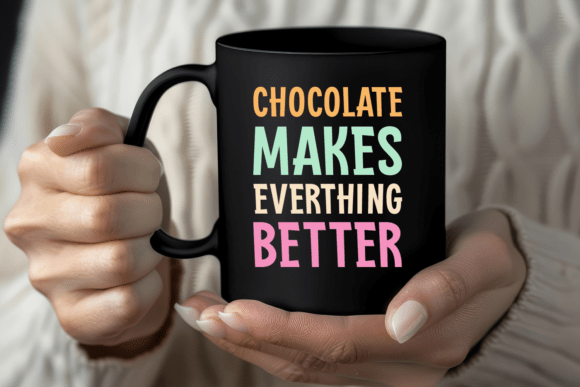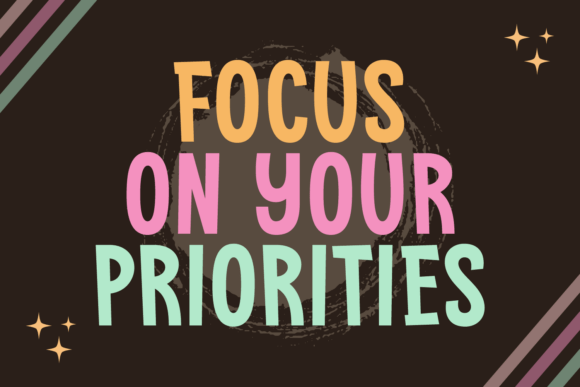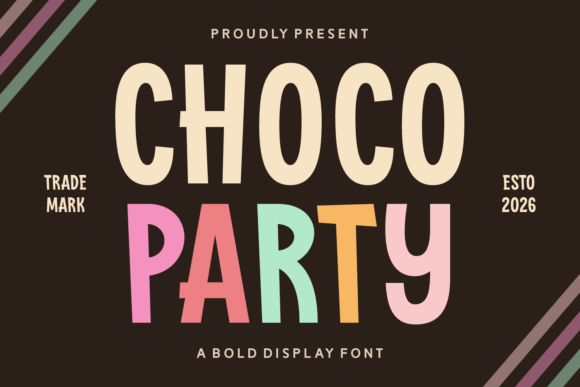
Introduction to Choco Party Font
Indulge in the rich, vintage-inspired charm of Choco Party, a bold display font designed for maximum presence.
This typeface features tall, condensed letterforms with a “retro-confectionery” soul, making it ideal for artisanal chocolate packaging, boutique cafe branding, and classic bakery identities Its sturdy yet playful rhythm makes it the premier choice for high-impact posters, custom merchandise, and sophisticated “sweet-treat” social media headers.